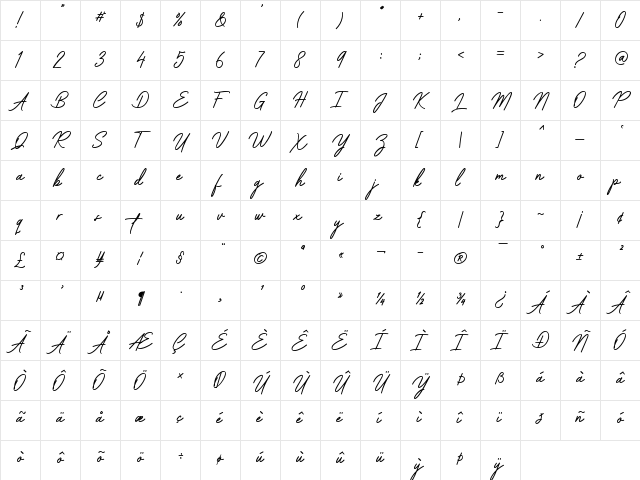
Capetown Signature Slant Regular
| Designer | (MJB Letters). 2019. (Muhammad Mujibulloh) |
Design Context for Capetown Signature Slant Typeface
Capetown Signature Slant is a composed and adaptable typeface that performs quietly and consistently across a wide range of design contexts.